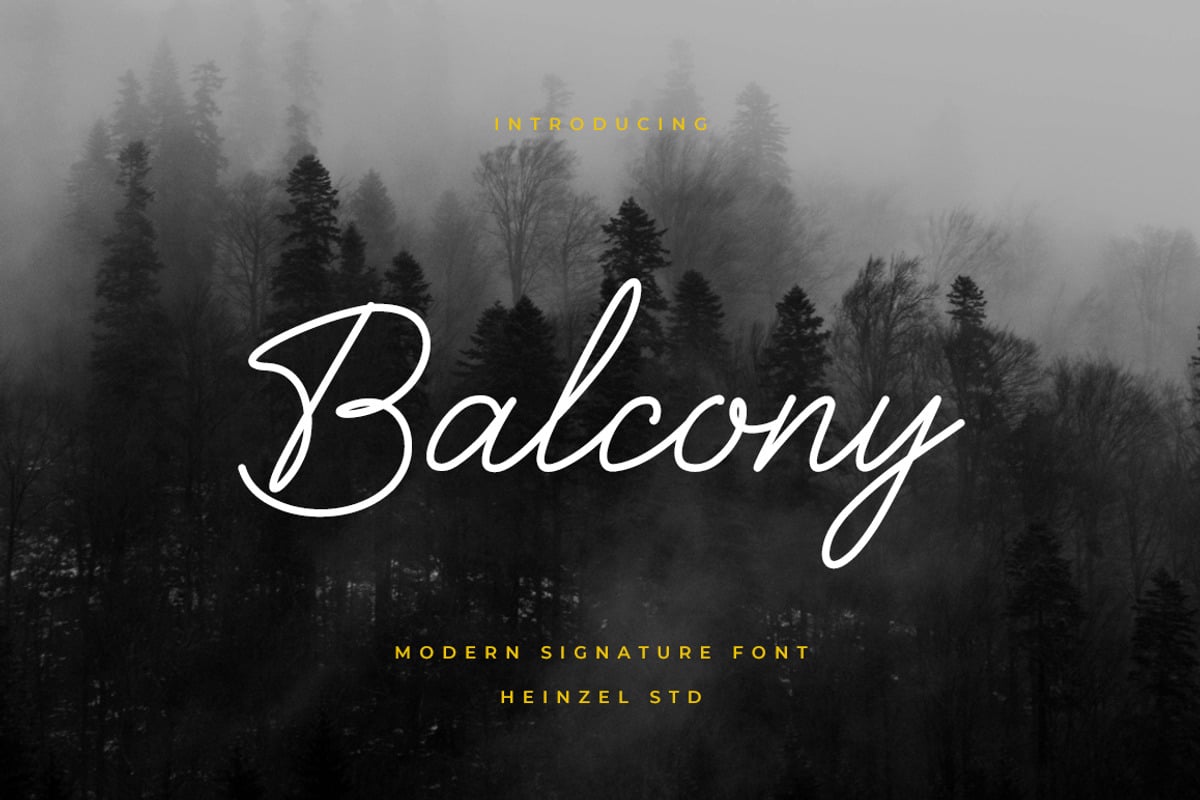
Balcony Handwritten Font
Balcony is the elegant, flowing signature font your most beautiful projects have been waiting for.
With an incredibly distinct and timeless style, Balcony blends natural handwritten charm with refined elegance — making it effortlessly versatile for a wide range of creative applications. Fall in love with its graceful letterforms and use it to craft spectacular designs that leave a lasting impression.
- Uppercase and Lowercase letters
- Numbers and Punctuation
- Multilingual Support